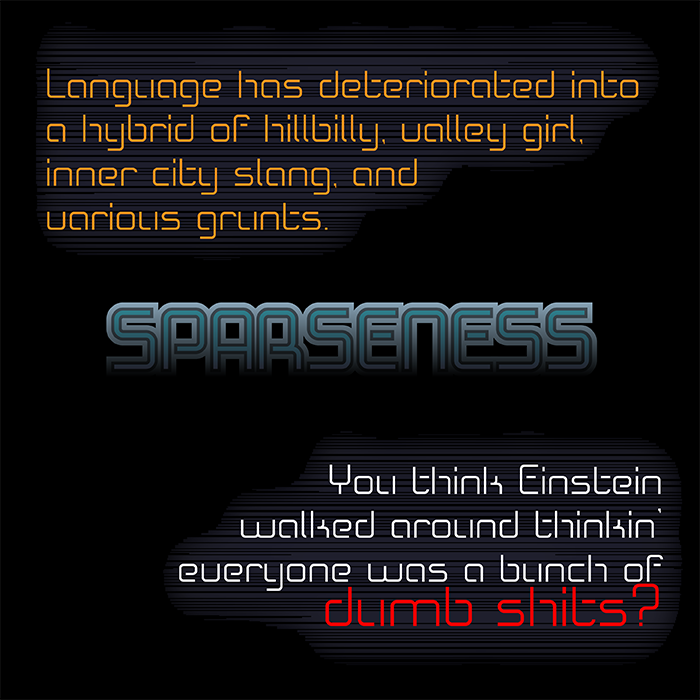
• SPARSENESS is a minimalistic type design with a modern appearance.
It's main purpose was the aim to perform well even at a small point-size. Therefore the letterforms carefully keep plenty of open space in order to remain legible even at small point-size.
nice futuristic stencil
Nice design. Your Thorns are backwards by the way, i.e., you have the lowercase in the uppercase spot, and vice versa. :)